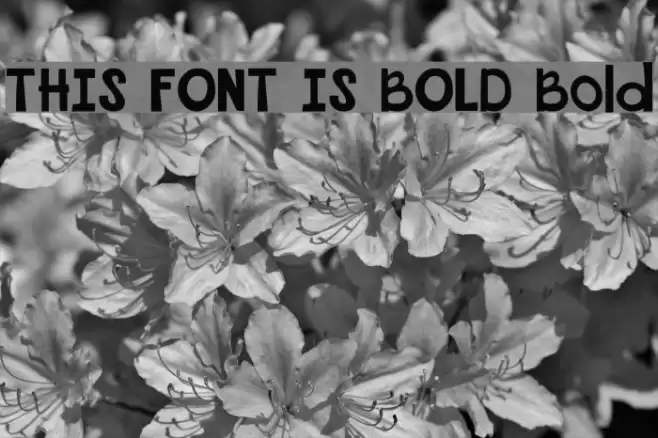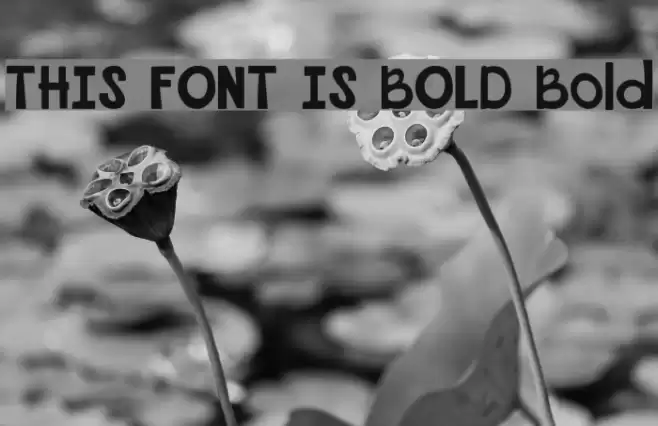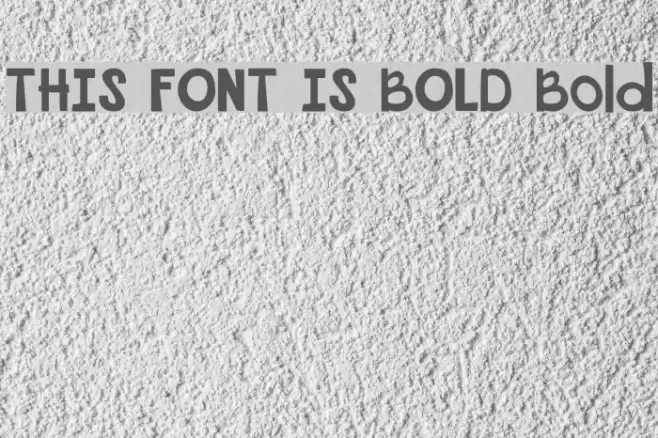
THIS FONT IS BOLD Bold Font
THIS FONT IS BOLD Bold Description
This font exhibits a bold and playful style with a strong presence. The uppercase letters are characterized by their thick strokes and slightly rounded edges, giving them a friendly and approachable appearance. The lowercase letters maintain this boldness, with a consistent stroke width that enhances readability. Numbers are equally bold, ensuring they stand out clearly. Special characters are designed to match the overall style, maintaining the same thickness and playful curves. The font's overall design is cohesive, making it suitable for projects that require a fun and engaging look.
A bold, playful font with thick strokes and rounded edges from Uncategorized fonts.
- Proposed Projects: Ideal for children's books, playful branding, posters, and any project needing a fun, bold typeface.
- Overall Style: Playful, Fun, Bold